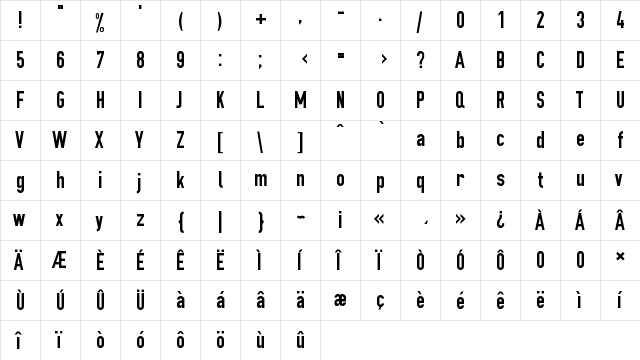
OSP-DIN DIN
Design Context for OSP-DIN Typeface
OSP-DIN is a composed and adaptable typeface that performs quietly and consistently across a wide range of design contexts.
Pro Tip: Use OSP-DIN in both headline and body roles to test its range before committing to a single application.